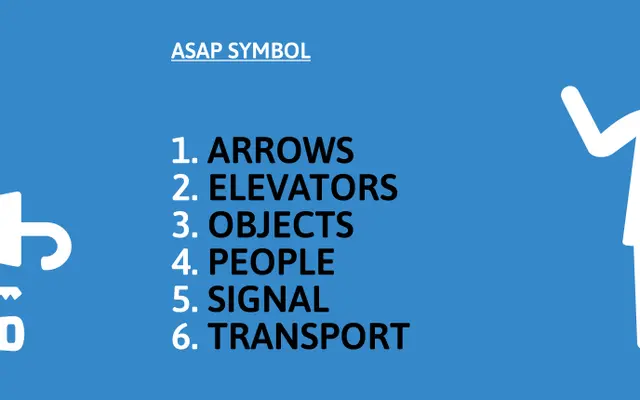
Asap Symbol
A libre icon font of over 150 pictograms designed as a companion to the Asap typeface family, covering education, public spaces, health, tourism and transport.
Produced by Omnibus-Type as a pictographic complement to their Asap text family, this icon font offers more than 150 symbols across practical, everyday contexts. Categories include education, public spaces, health, tourism and transport, making it suited to wayfinding, signage and informational design work. Available free of charge, with a character map provided for reference.
Asap Symbol is a pictographic icon font designed as a companion to the Asap text family, falling outside standard text categories and best classified as display due to its symbolic, non-alphabetic glyph set.